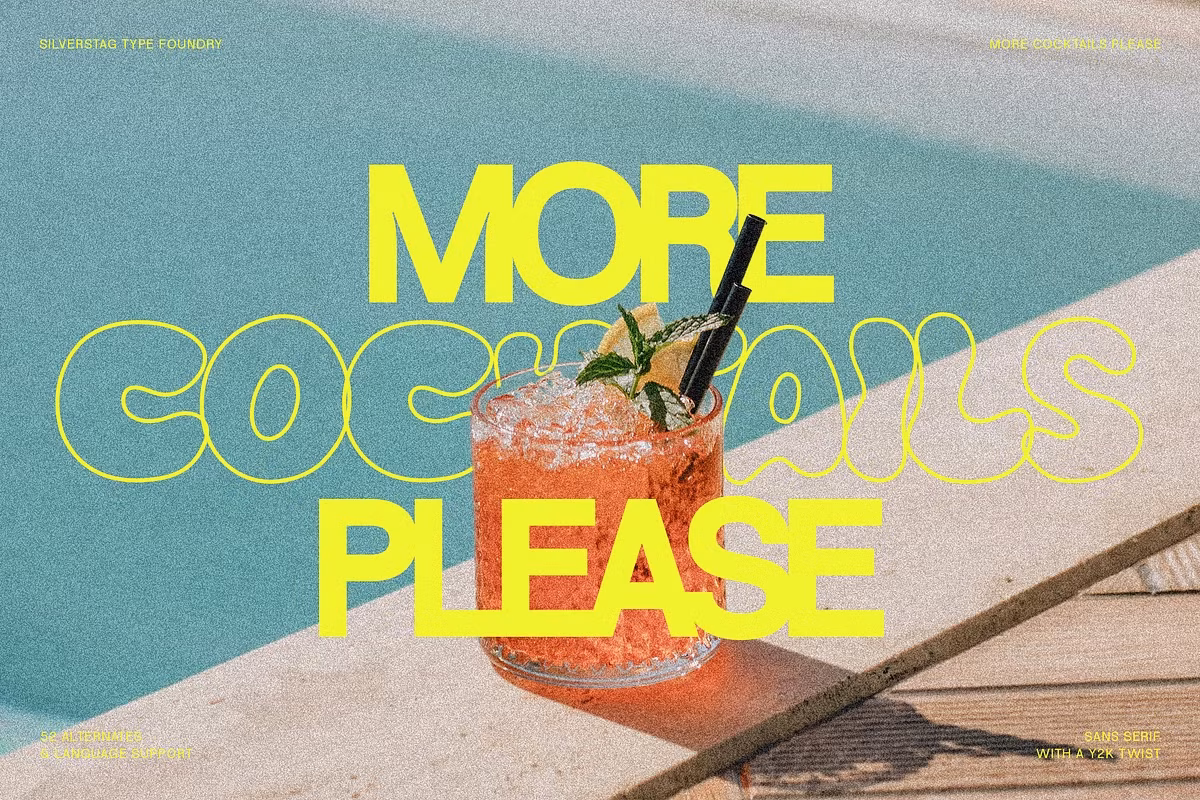
More Cocktails Please Y2K Funky Font Free Download
More Cocktails Please Y2K Funky Font Free Download is a vibrant and bold typeface inspired by the playful, colorful aesthetics of the early 2000s. With its funky, distorted letterforms and fun, retro vibe, this font is perfect for party invitations, event flyers, social media graphics, and designs that need a bold, energetic touch.
More Cocktails Please Y2K Funky Font Free Download brings a lively, nostalgic feel to your typography, making it ideal for anything that needs to evoke the excitement and flair of the Y2K era. Whether you’re designing for a themed event, creating playful branding, or adding flair to social media posts, this font brings fun and creativity to the forefront. Download it today and add a dose of Y2K fun to your next design project!